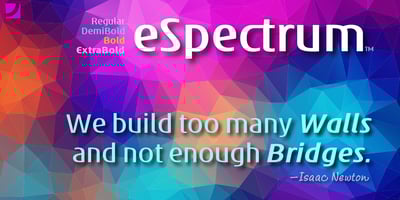
eSpectrum
eSpectrum font
eSpectrum Font Family was designed by John Nahmias and published by Jonahfonts. eSpectrum contains 8 styles and family package options. A text and display font suitable for various applications, many of which include, letterheads, packaging and logos. Excellent for very large typographic layouts